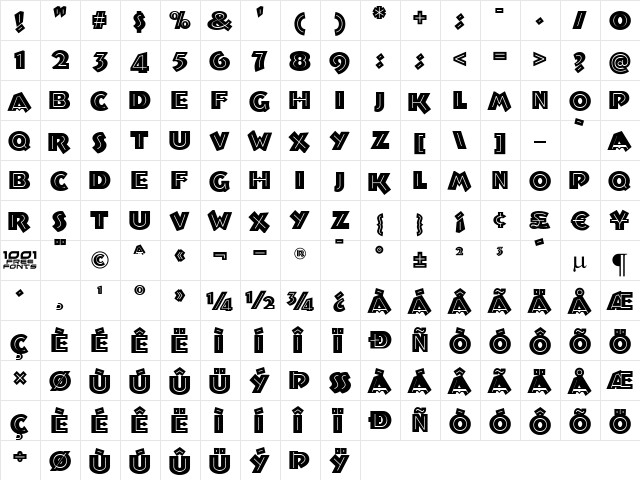
Troglodyte NF Regular
| Foundry | Nick's Fonts |
| Designer | Nick Curtis |
Design Context for Troglodyte NF Typeface
Troglodyte NF is a composed and adaptable typeface that performs quietly and consistently across a wide range of design contexts.